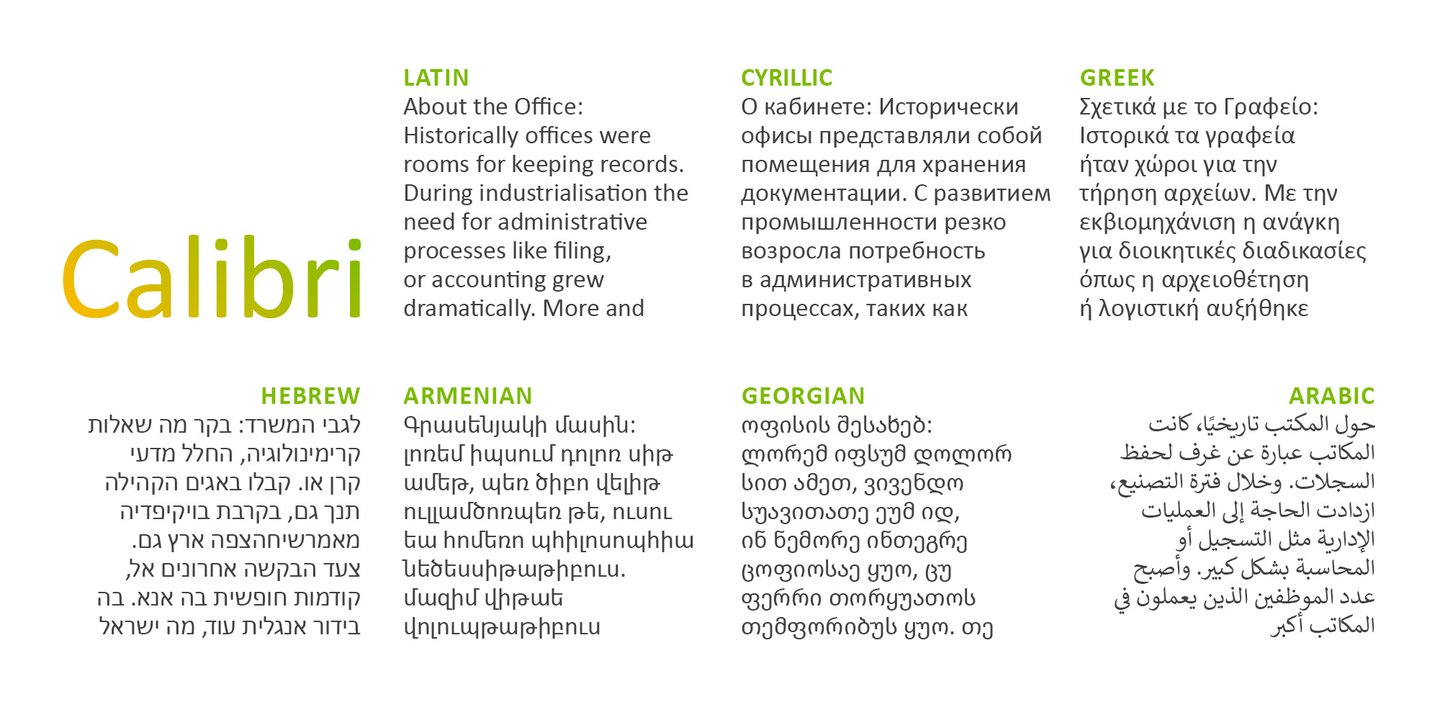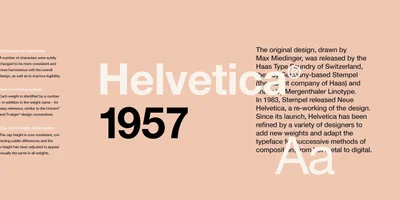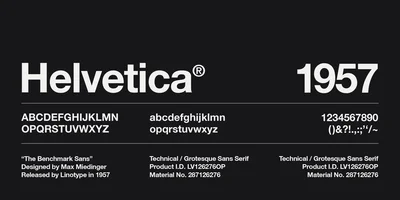
Calibri vs Helvetica LT
Calibri and Helvetica LT are both sans-serif typefaces sharing a modern foundation. Where Calibri leans humanist, tech, Helvetica LT brings minimal. Compare which suits your Corporate project.
Design overlap:20%
| Feature | Calibri | Helvetica LT |
| Language Support | latin, latin-extended, cyrillic, greek | latin, latin-extended, cyrillic, greek |
| Source | Microsoft | Linotype |
Recommended: Calibri
- humanist, tech design character
- Suited for Documents and Office
- From Microsoft
Consider: Helvetica LT
- minimal design character
- Suited for Branding and Editorial
- From Linotype